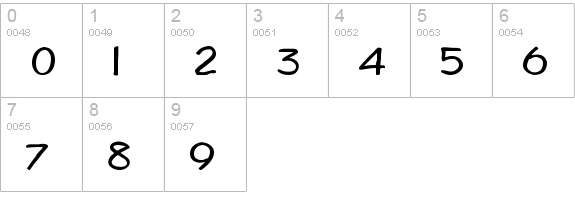
CopybookExtended Normal is the standard, neutral variant in the CopybookExtended typeface family \xE2\x80\x94 well suited to general body text, paragraphs, and standard typographic work.
CopybookExtended Normal font is a classic and versatile typeface that exudes elegance and readability. With its clean and timeless design, this font is perfect for a wide range of projects, from professional documents to creative designs. The balanced proportions and distinct letterforms of CopybookExtended Normal make it a reliable choice for conveying information effectively while maintaining a touch of sophistication. Best of all, this font is available for free download at FontsMarket.com. Whether you're working on a business presentation, a branding project, or a personal creative endeavor, CopybookExtended Normal font offers you the flexibility and style you need to make your text stand out. Don't miss out on this opportunity to enhance your designs with a high-quality font that is both practical and visually appealing.